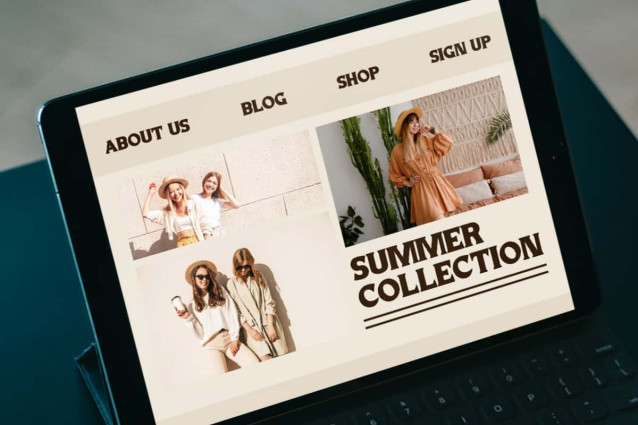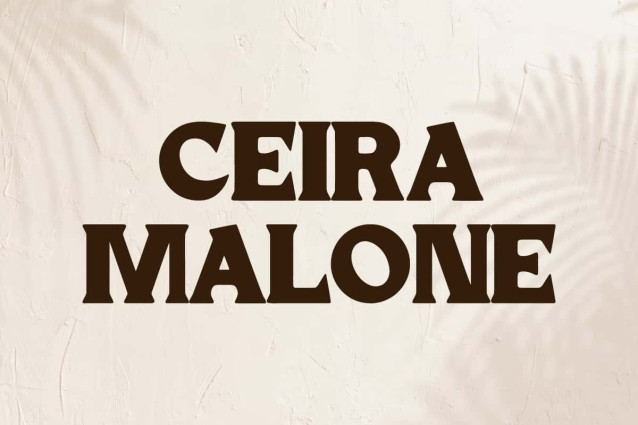
Ceira Malone Font
Ceira Malone Font is a bold and dynamic display font that gives the impression of strong and bright character. It would be suitable for any designs, such as brand image, brochure, label, logo design, magazine cover, mockup template, packaging, poster, quotes, signage, stationery, website, and more!
Ceira Malone Font includes a complete set of Uppercase and Lowercase Basic Characters, Numbers, Punctuation, and Symbol. The letter design gives a sporty and modern feel. Making it a perfect choice for a variety of fields, such as advertising, automotive, sports, cafe, crafts, event or festival, photography, real estate, restaurant, spa, travel, etc.